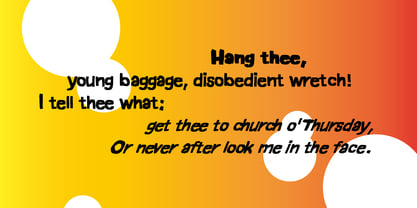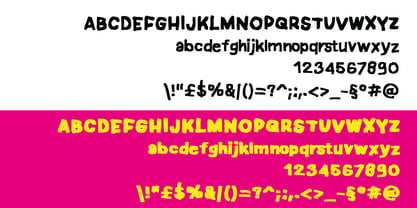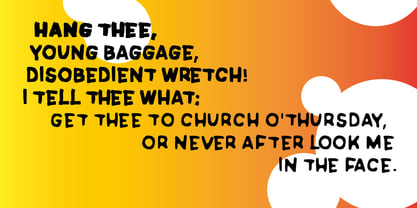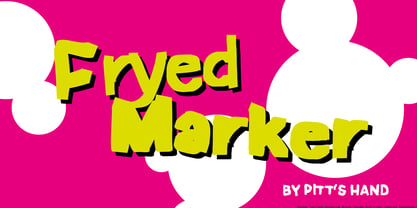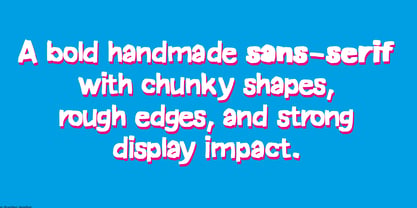
Frayed Marker
by Pitt's Hand
The Frayed Marker Font Family was designed by Pietro Rotelli and published by Pitt's Hand. Frayed Marker contains 4 styles and family package options. More about this family
Frayed Marker is a bold, expressive sans-serif designed for display typography, lettering, advertising, and comic artwork. It combines heavy, solid letterforms with a handcrafted, rough texture, creating a typeface that feels strong, spontaneous, and full of personality. The design features thick strokes, irregular outlines, and chunky proportions, giving Frayed Marker a powerful visual presence. Its imperfect shapes add warmth and character, making it especially effective for headlines, posters, logos, packaging, branding projects, comic titles, and typographic illustrations. Despite its raw and energetic style, the font is built on a clear Roman structure, ensuring good readability at larger sizes. The family includes Roman, Italic, Bold, and Bold Italic, providing flexibility for expressive layouts and dynamic typographic hierarchies. Frayed Marker is ideal when you need a strong display font with a handmade attitude — bold, confident, and designed to stand out.